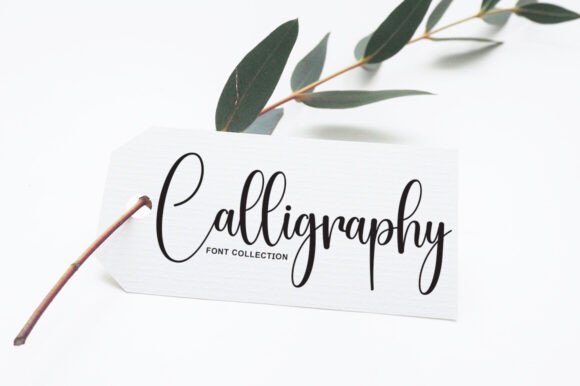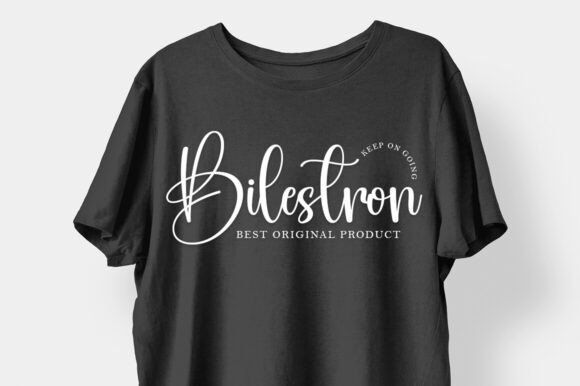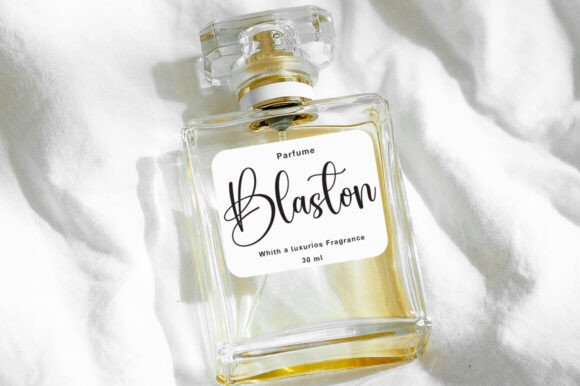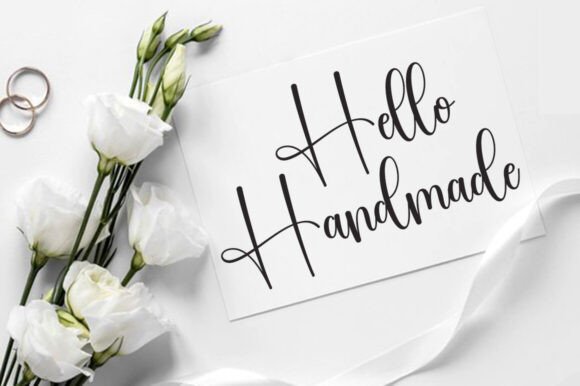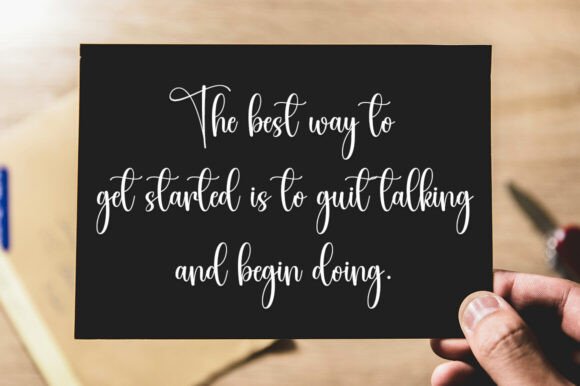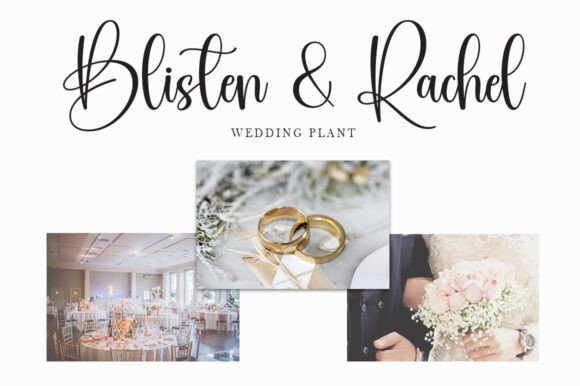
The Art of Personal Touch: Unlocking the Power of Beauty Font
Have you ever sat down with a blank sheet of paper, a pen in hand, and let your creativity flow? The scribbles and swirls on the page come alive as you pour your heart and soul into a project. This is the magic of handwritten typography, where the imperfections become the perfect imperfections.
Enter Beauty Font, a stunning handwritten font that captures the essence of elegant cursive writing. Designed to add a personal and stylish touch to your designs, Beauty Font is perfect for invitations, logos, and social media posts. For designers, this font is a treasure trove of creative possibilities, allowing you to infuse your work with a unique and timeless beauty.
With Beauty Font, you can elevate your designs from ordinary to extraordinary, making it a valuable addition to any designer’s toolkit. Whether you’re a seasoned pro or just starting out, this beautiful font is sure to inspire and delight.
Key Features of Beauty Font
- Unique Characteristics: Beauty Font features a unique blend of elegance and sophistication, with intricate details and subtle flair that sets it apart from other fonts.
Beauty Font Review
As a designer, I’m always on the lookout for fonts that can elevate a brand’s visual identity. Beauty Font is a relatively new addition to my design toolkit, and I’m here to share my honest review.
- Unique and feminine feel: Beauty Font has a distinctive, hand-painted quality that makes it perfect for fashion, beauty, and lifestyle brands.
- High-quality glyphs: The font has a wide range of characters, including accented letters and symbols, which ensures that it’s versatile and easy to use.
- Good legibility: Despite its decorative feel, Beauty Font is still easy to read, making it suitable for body text and headlines.
- Limited font weights: Beauty Font only comes in a few weights, which can make it challenging to create a consistent typographic hierarchy.
- No italic or oblique styles: If you need to emphasize certain text or create a sense of movement, you’ll be limited to the standard upright font.
- Not suitable for technical content: Beauty Font’s decorative feel can make it difficult to read for long stretches of technical or instructional text.
Overall, Beauty Font is a beautiful addition to any designer’s toolkit. While it has some limitations, its unique feel and high-quality glyphs make it a great choice for brands that want to stand out from the crowd. Just be mindful of its limitations when using it for body text or technical content.
Getting the Most Out of Beauty Font
Here are some tips to get the most out of Beauty Font:
– Use it for headings and titles to add a touch of elegance.
– Experiment with different font sizes and colors to create visual interest.
– Combine Beauty Font with other fonts to create a unique look.
Beauty Font is commonly used for:
– Wedding invitations and stationery
– Fashion and beauty branding
– Luxury product packaging and marketing materials